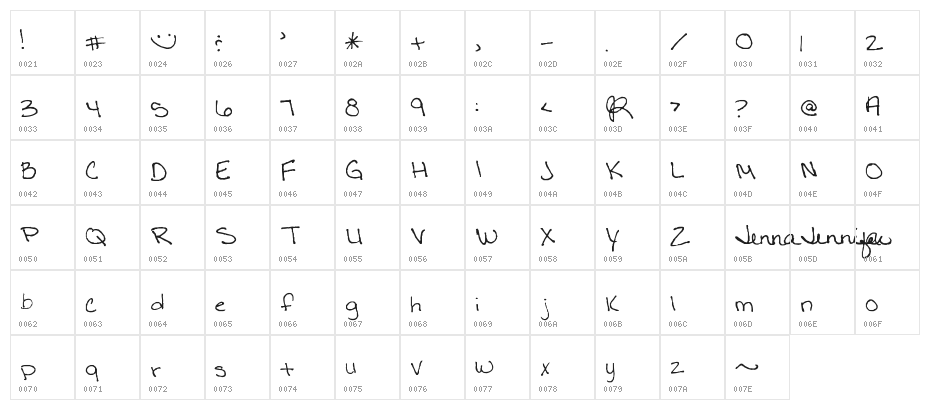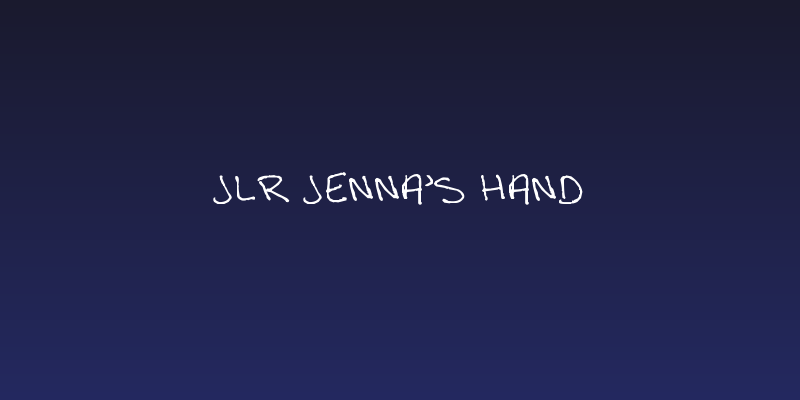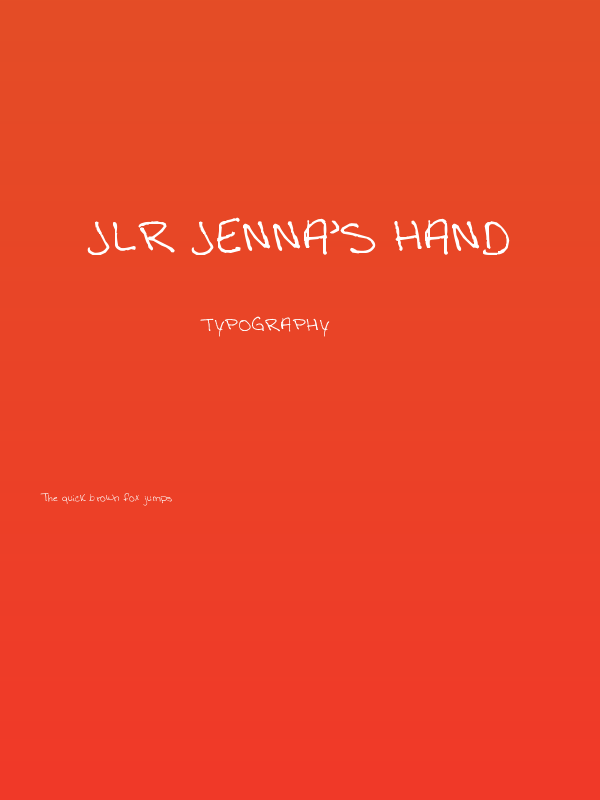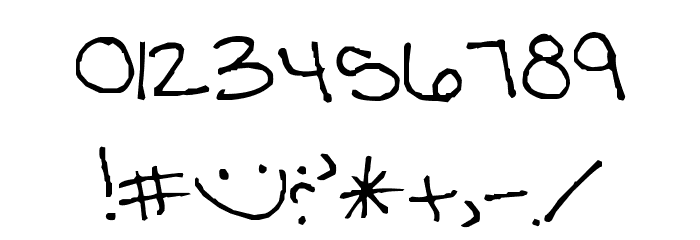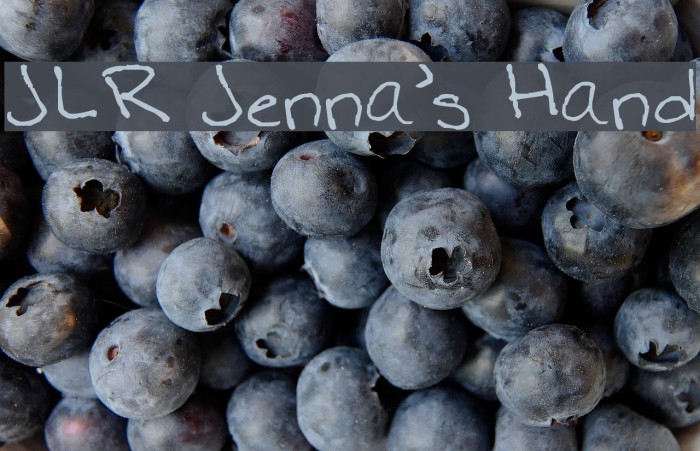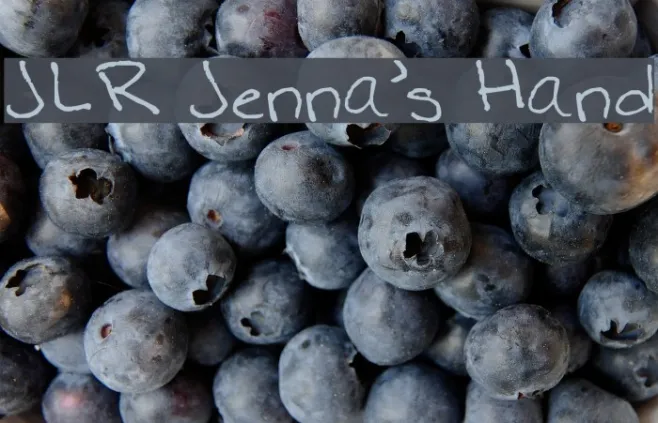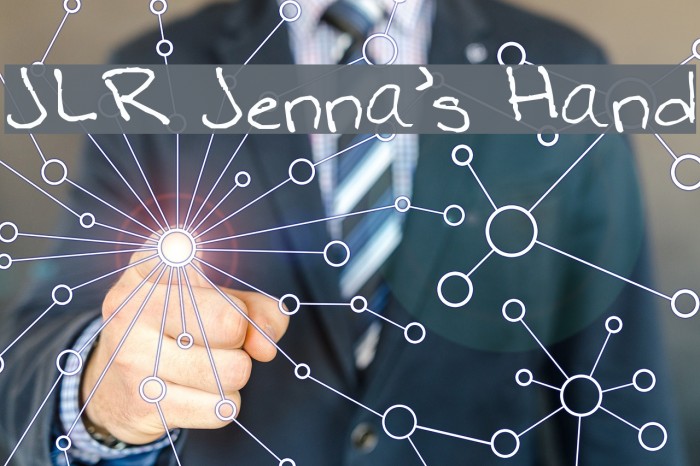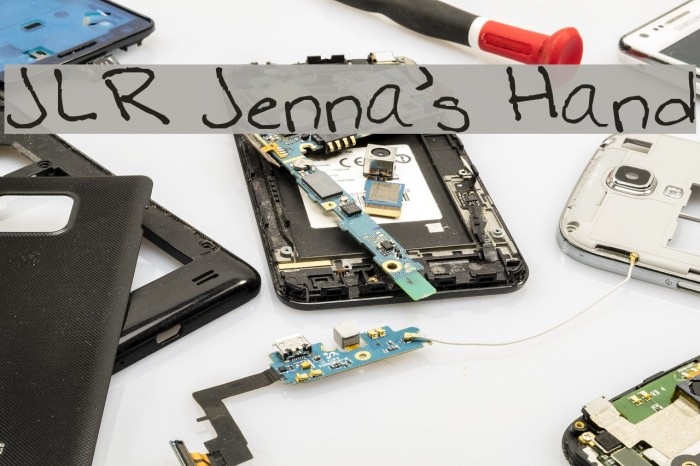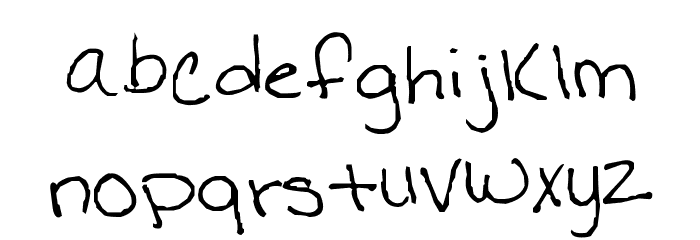
JLR Jenna's Hand Font
JLR Jenna's Hand Description
This font exudes a casual, handwritten style, reminiscent of personal notes or informal letters. The characters are slightly irregular, giving it an authentic, human touch. The strokes are consistent in width, with a playful and approachable feel. The uppercase letters are bold and distinct, while the lowercase letters maintain a friendly and relaxed appearance. Numbers and special characters follow the same informal style, making the font versatile for various uses. The overall look is charming and unpretentious, perfect for projects that require a personal touch.
| Proposed Projects | Ideal for personal notes, greeting cards, informal invitations, and creative projects that require a human touch. |